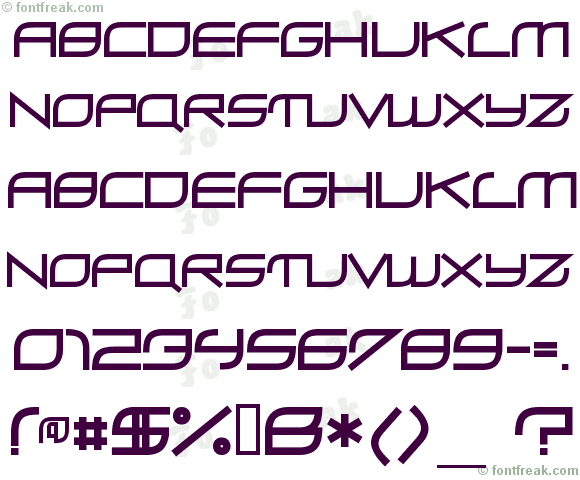
ZeroHour
About Zero Hour
Zero Hour is a distinctive display font designed by Ray Larabie in 1997, characterized by its bold, geometric sans-serif style. This font features a unique blend of sharp angles and rounded edges, creating a striking visual impact that captures attention. The stroke weight is consistent, giving it a sturdy yet modern appearance, while the spacing is well-balanced, ensuring clarity and legibility even at larger sizes. The absence of excessive decorative elements allows for a clean aesthetic, making it ideal for a variety of design applications.
The Zero Hour font is particularly well-suited for use in movie posters, where its eye-catching design can effectively convey the dynamic energy of the film. Additionally, it works beautifully on restaurant menus, adding a contemporary flair that appeals to diners. This font can also enhance event flyers, providing a bold statement that draws in attendees, and is perfect for branding elements that require a memorable visual identity, such as logos for tech startups or urban businesses. Its versatility makes it an excellent choice for graphic designers, small business owners, and content creators looking to elevate their projects.
What truly sets the Zero Hour font apart is its ability to merge modern design with a playful spirit, making it a standout choice for those who want their work to resonate with audiences. The combination of its geometric forms and clean lines invites creativity, allowing designers to experiment with various layouts and color schemes. Whether you're crafting an eye-catching advertisement or a stylish invitation, the Zero Hour font free download offers a unique opportunity to infuse your projects with a contemporary edge that is both memorable and impactful.